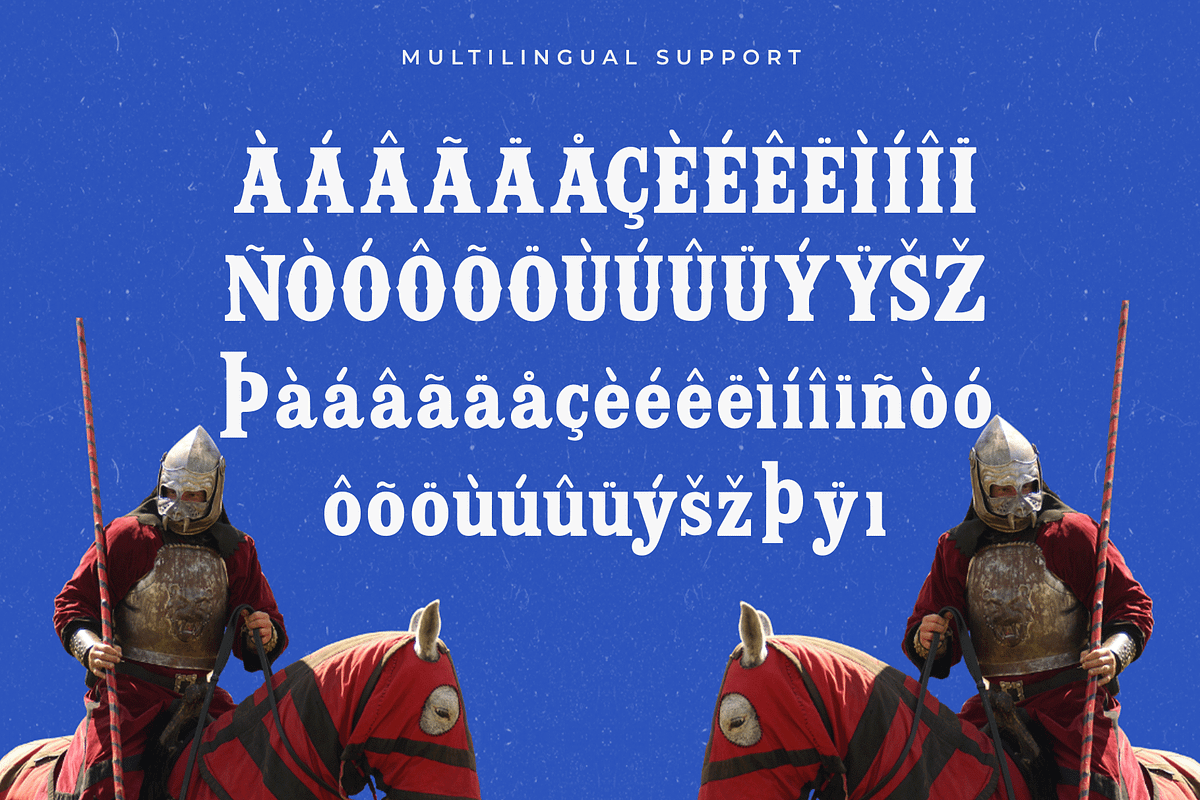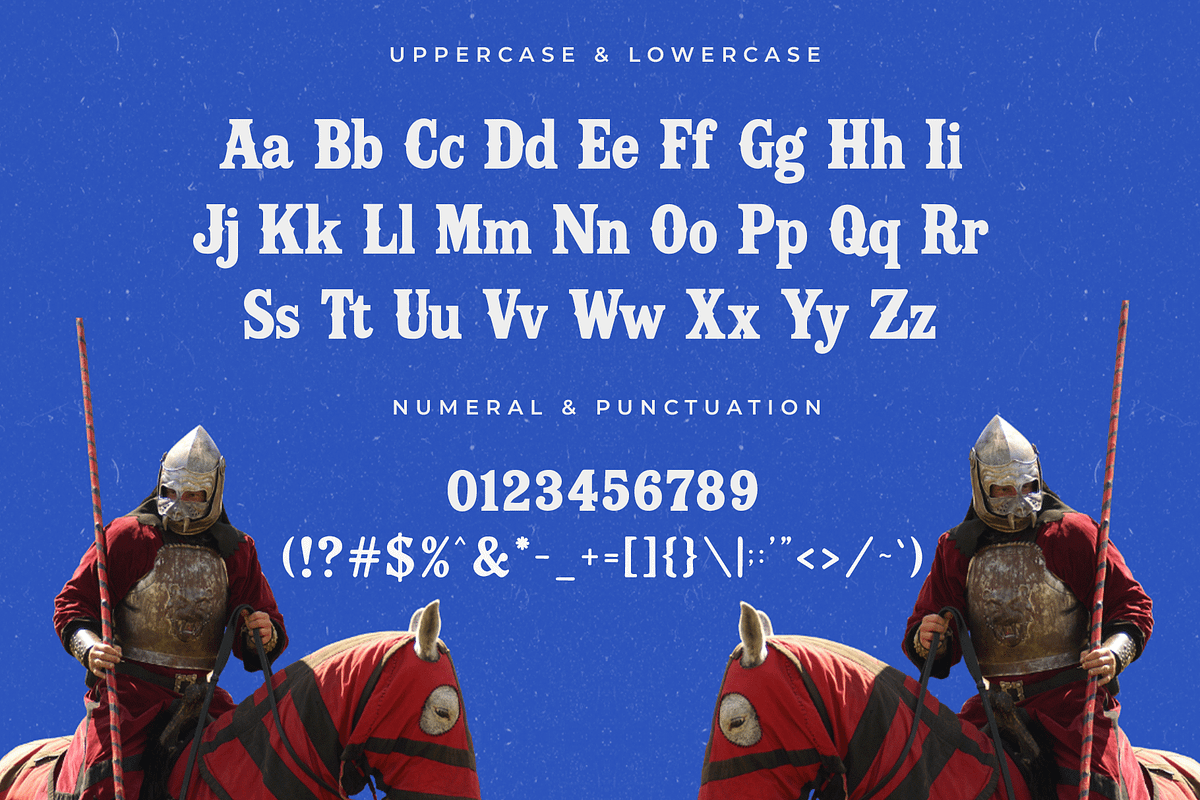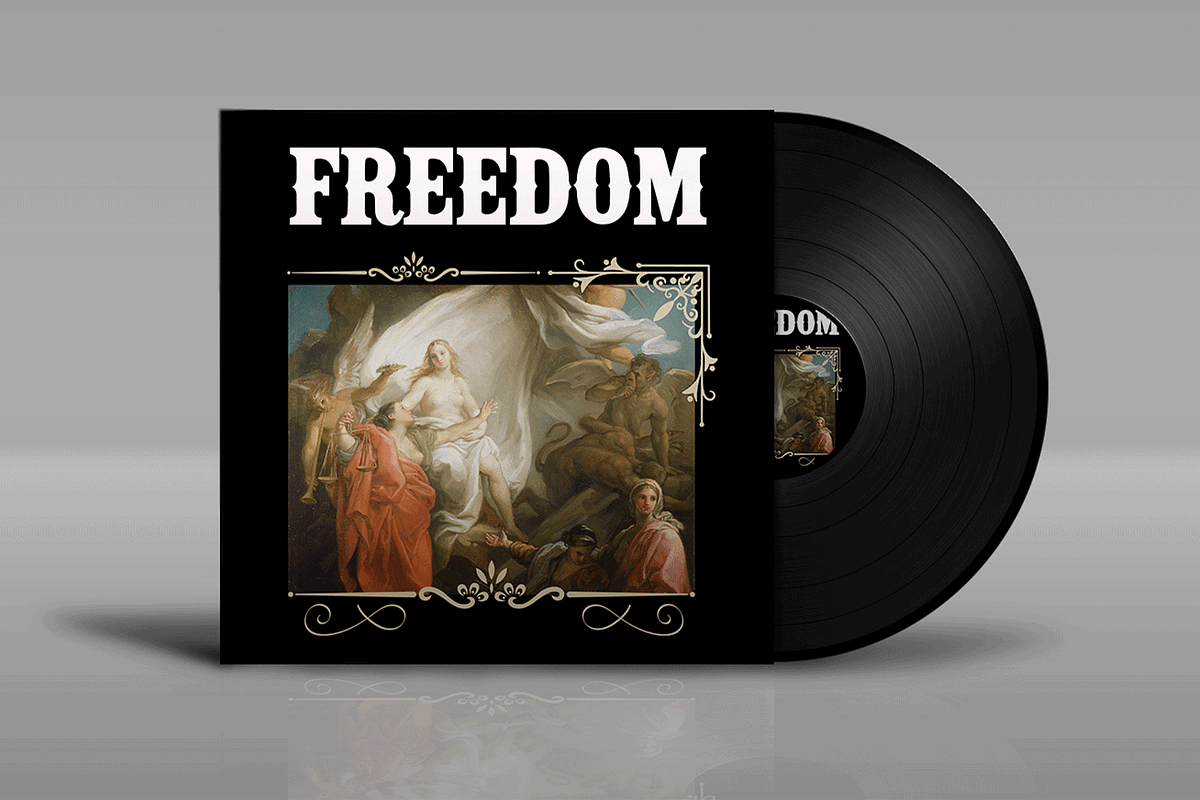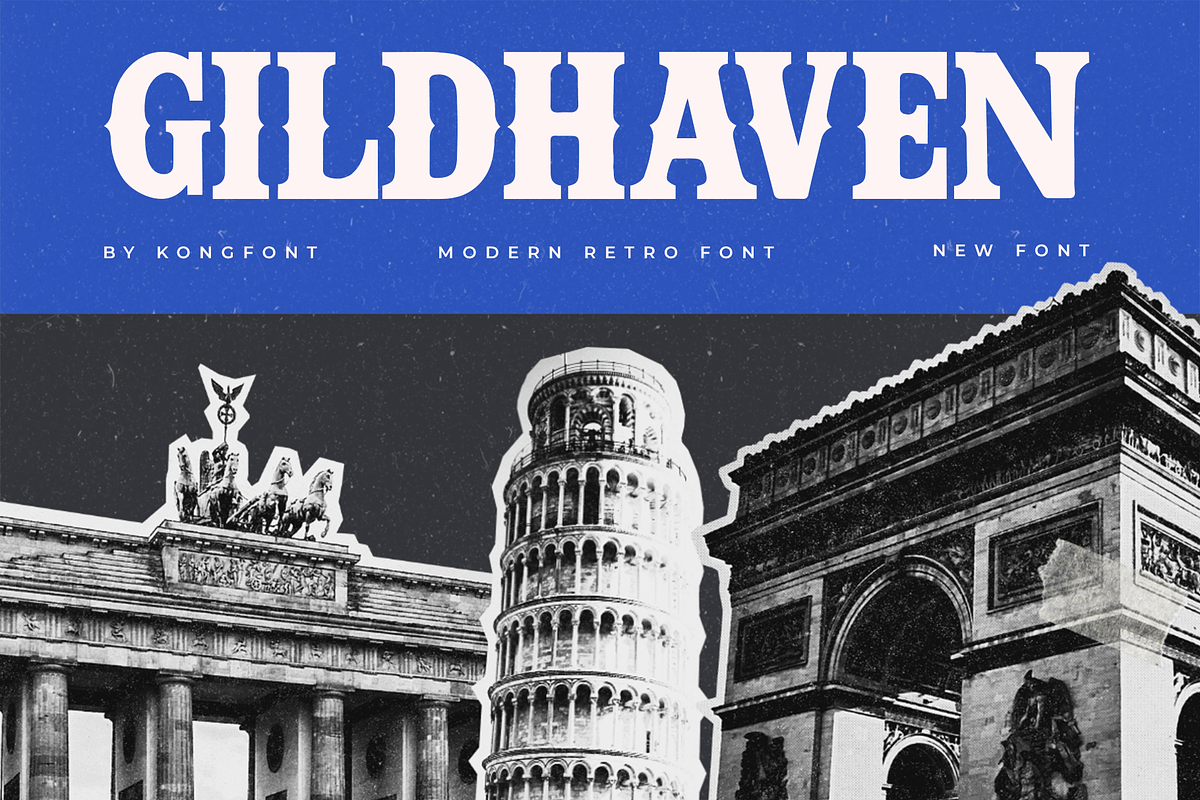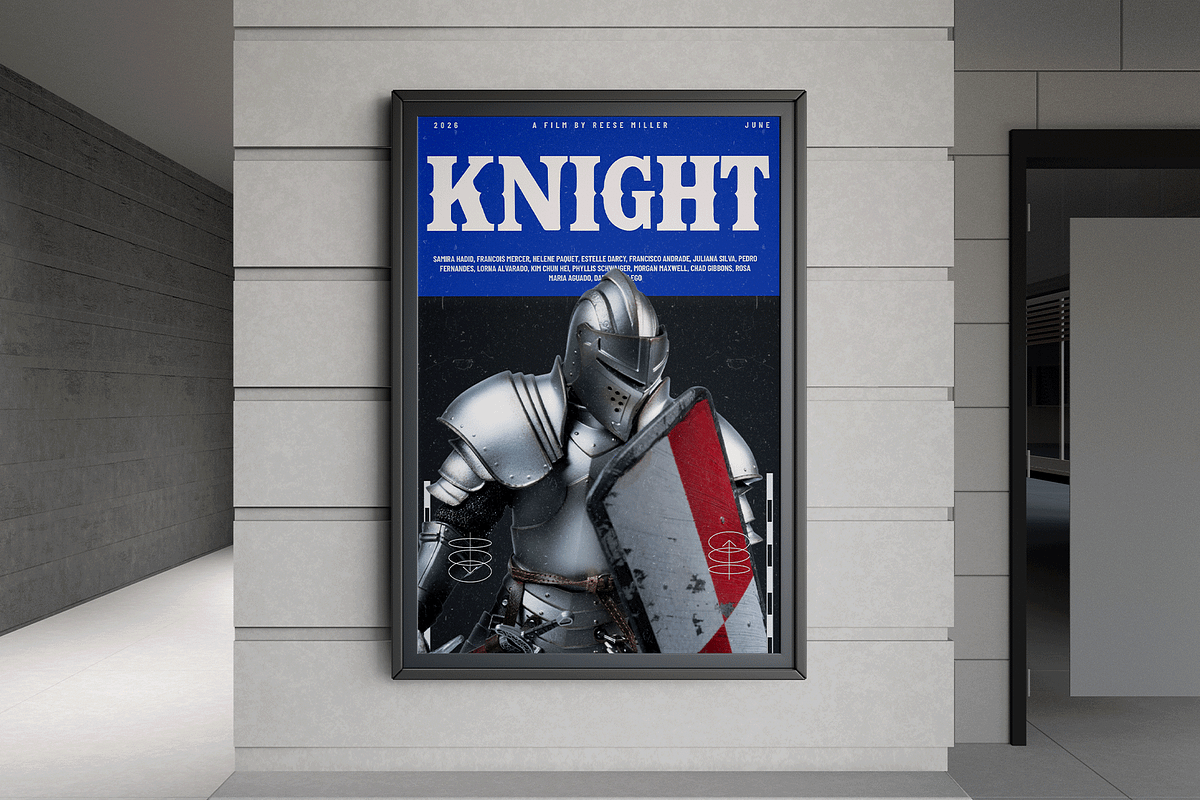
Gildhaven – A Modern Retro Font
Gildhaven is a modern retro font that blends nostalgic aesthetics with a fresh contemporary twist. With its bold curves, charming serifs, and timeless character, this font evokes the golden age of design while remaining perfectly suited for today’s creative needs.
Whether you’re crafting logos, magazine headers, packaging, posters, or album covers, Gildhaven delivers strong personality and unforgettable style. It’s a perfect typeface for those who want to add a retro touch without feeling outdated.